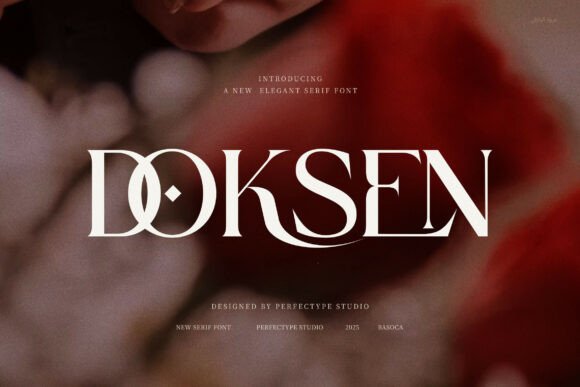
Doksen Font: Elevate Your Design with Timeless Sophistication
In the world of typography, a well-crafted font can make all the difference in elevating your creative projects from ordinary to extraordinary. Introducing Doksen, a refined and modern serif typeface designed to bring a touch of luxury and sophistication to your designs. With its graceful letterforms and carefully balanced proportions, Doksen is the perfect choice for designers looking to add a high-end feel to their work.
The Art of Doksen: A Study in Elegance
Doksen is more than just a font – it’s a masterclass in typographic design. Each letterform has been carefully crafted to exude a sense of refinement and poise, making it ideal for projects that demand a high level of sophistication. From the subtle curves of the serifs to the precise lines of the stems, every detail of Doksen has been meticulously considered to create a truly exceptional typeface.
Key Features of Doksen
- Refined and Modern Design: Doksen boasts a sleek and contemporary aesthetic that is perfect for designs that require a touch of sophistication.
- Serif Typeface: The subtle serifs of Doksen add a level of elegance and refinement to your designs, making it ideal for editorial layouts and branding projects.
- Carefully Balanced Proportions: The letterforms of Doksen have been carefully proportioned to create a sense of harmony and balance, ensuring that your designs look polished and refined.
- Luxurious and High-End Feel: Doksen is designed to evoke a sense of luxury and sophistication, making it perfect for high-end branding and editorial projects.
- Elegant and Versatile: Whether you’re working on a branding project or designing an editorial layout, Doksen delivers both elegance and versatility.
Use Cases for Doksen
Doksen is an incredibly versatile typeface that can be used in a wide range of design projects. Here are just a few examples:
- Branding for Upscale Businesses: Doksen is perfect for luxury brands that require a high-end feel to their branding.
- Editorial Layouts: The elegant and refined design of Doksen makes it ideal for editorial layouts, such as magazines, newspapers, and books.
- Packaging Design: Doksen can add a touch of sophistication to packaging design, making it perfect for high-end products.
- Advertising and Marketing Materials: Doksen can help elevate your advertising and marketing materials, making them stand out from the competition.
Why Choose Doksen?
With so many fonts to choose from, why should you choose Doksen? Here are just a few reasons:
- Unique and Distinctive Design: Doksen boasts a unique and distinctive design that will help your projects stand out from the competition.
- High-Quality Typography: Doksen is a high-quality typeface that is designed to deliver exceptional results in a wide range of design projects.
In conclusion, Doksen is a refined and modern serif typeface that is designed to elevate your creative projects with timeless sophistication. With its graceful letterforms and carefully balanced proportions, Doksen brings a luxurious and high-end feel to any design. Whether you’re working on branding for upscale businesses or designing editorial layouts, Doksen delivers both elegance and versatility. So why wait? Download Doksen today and take your designs to the next level.